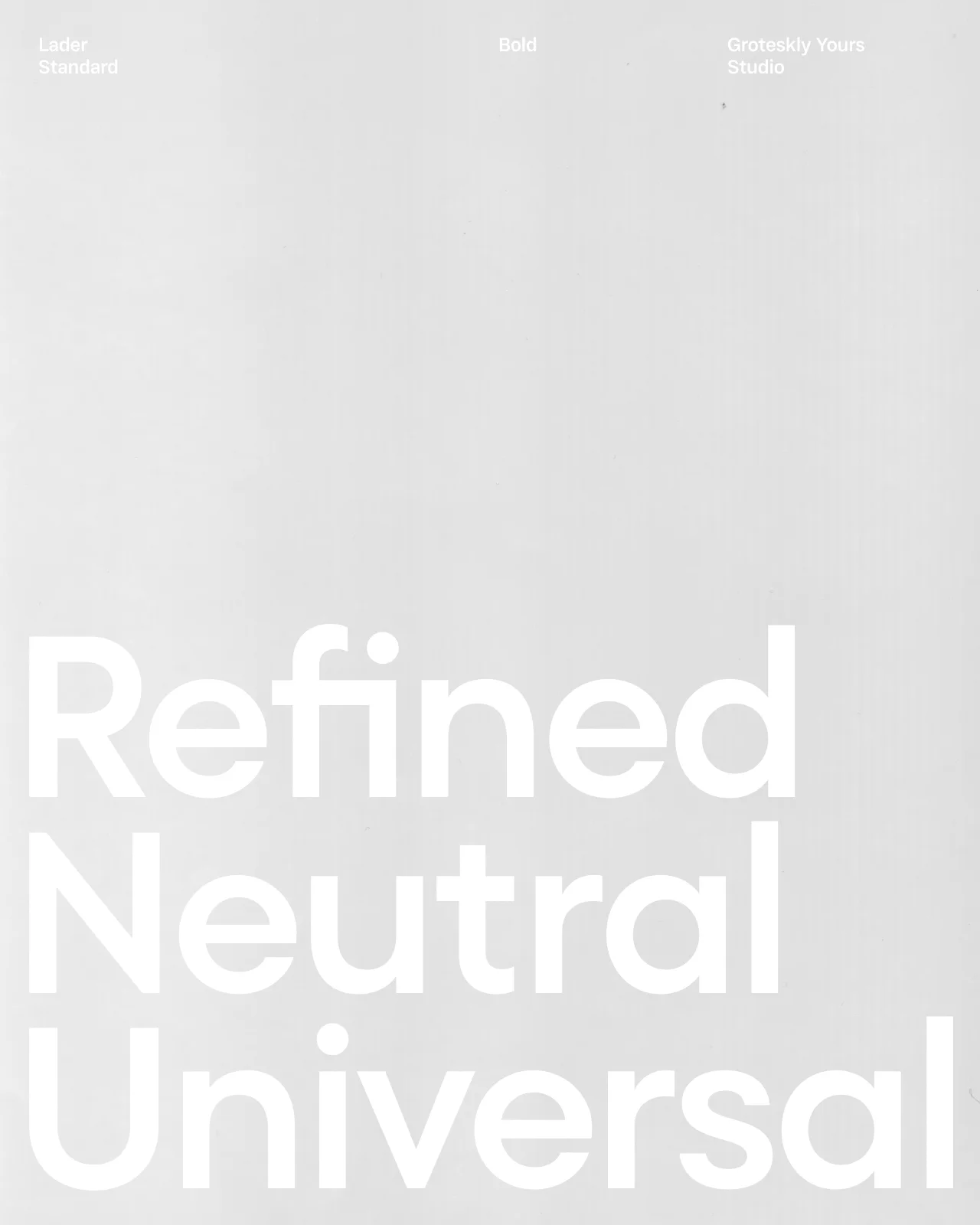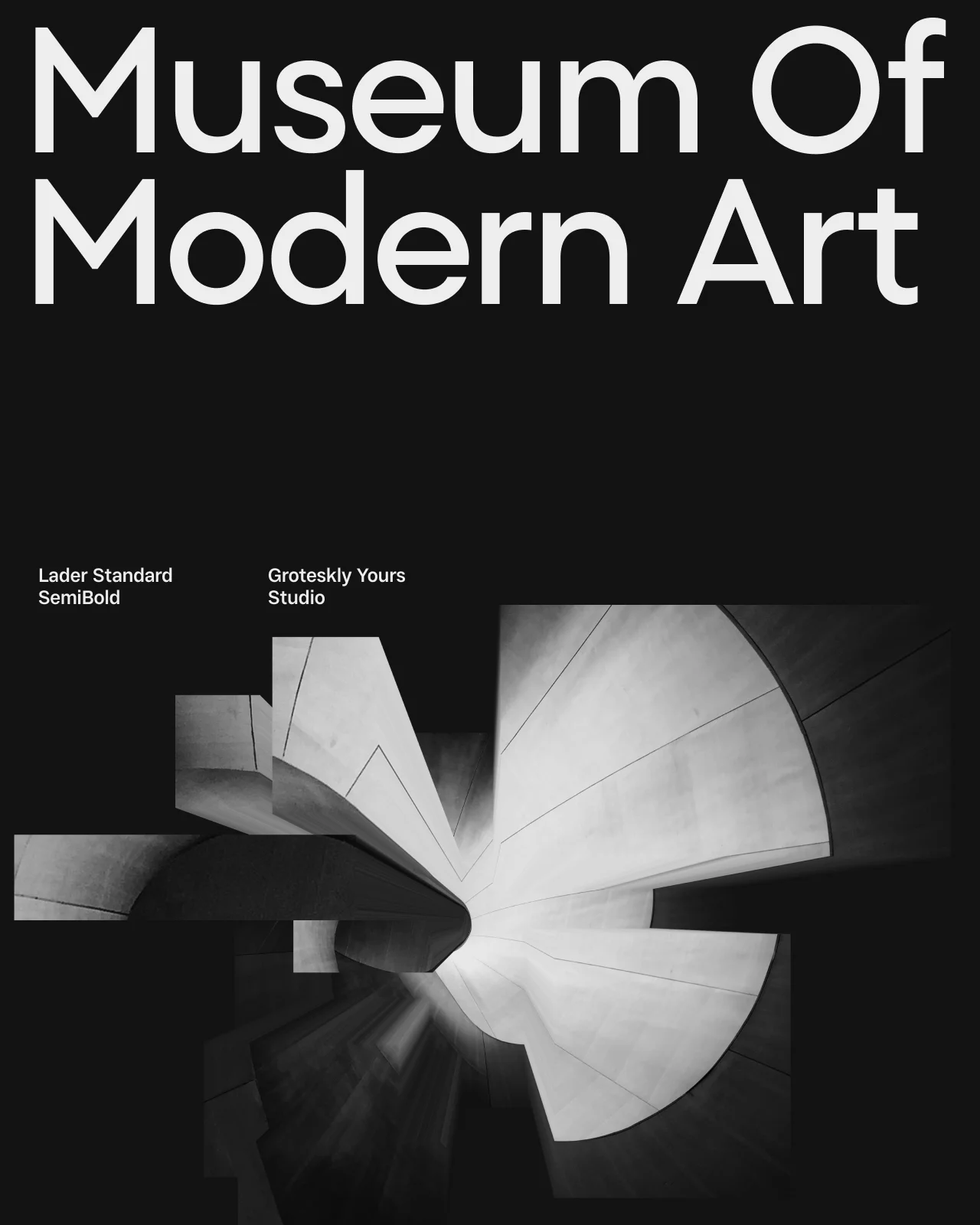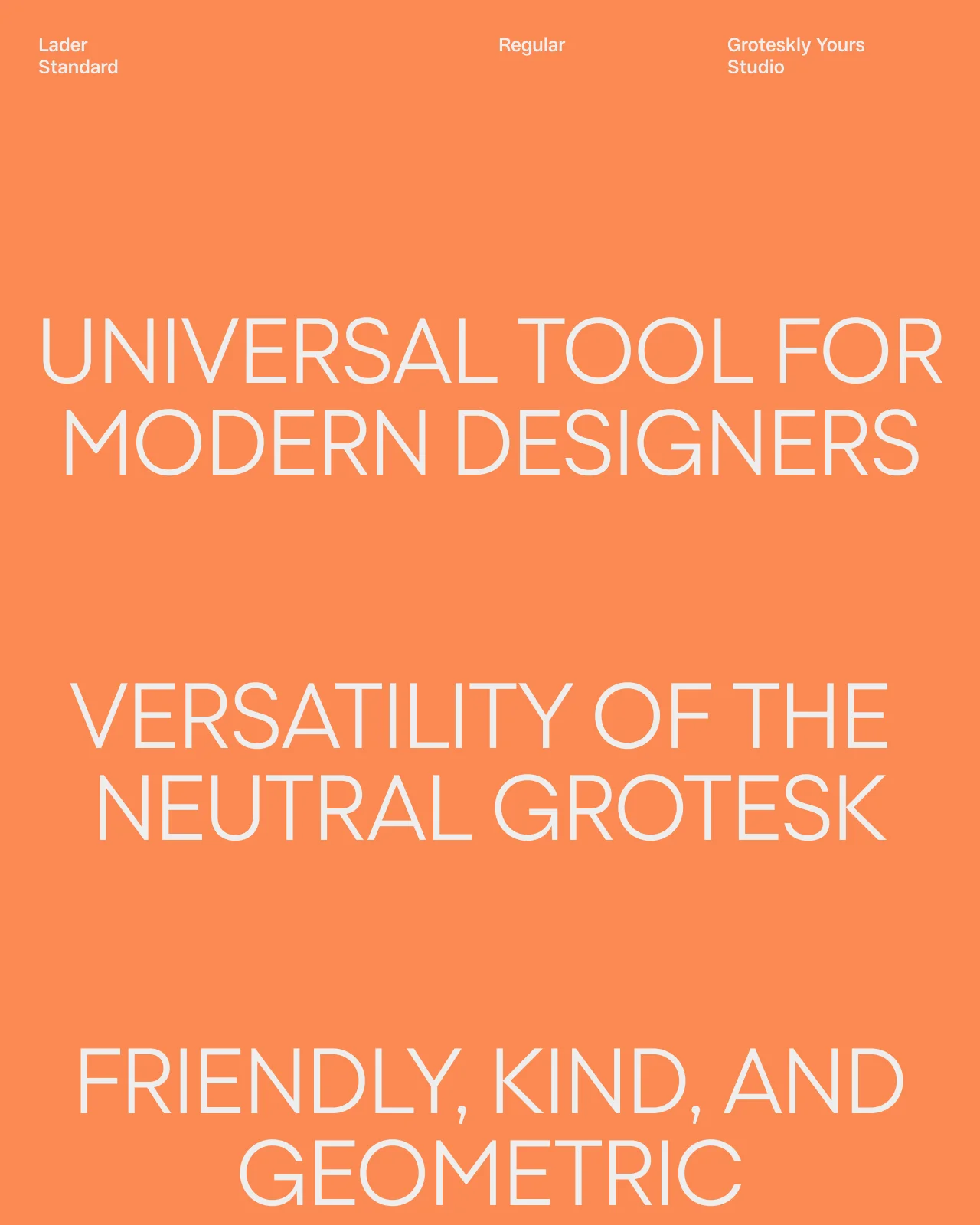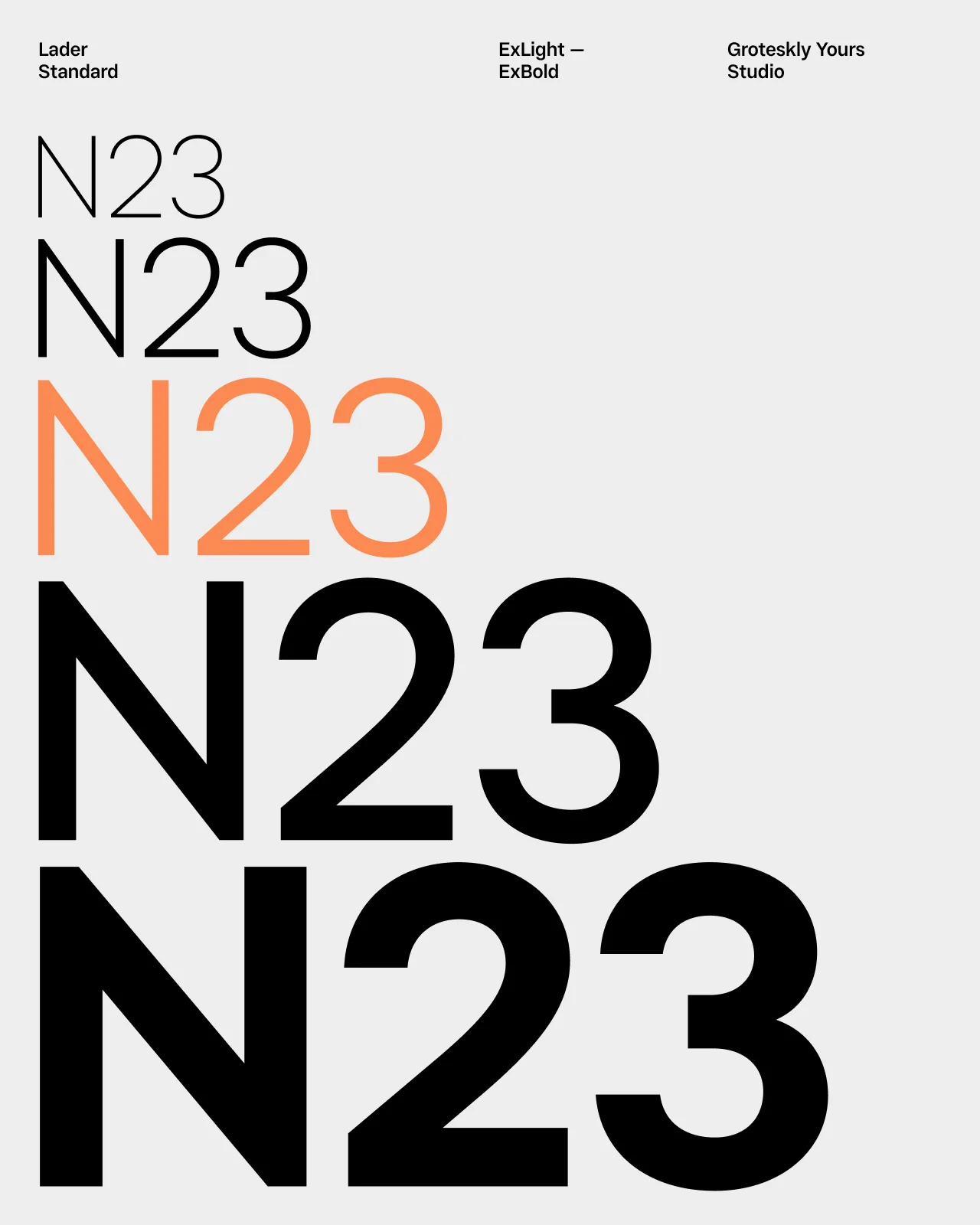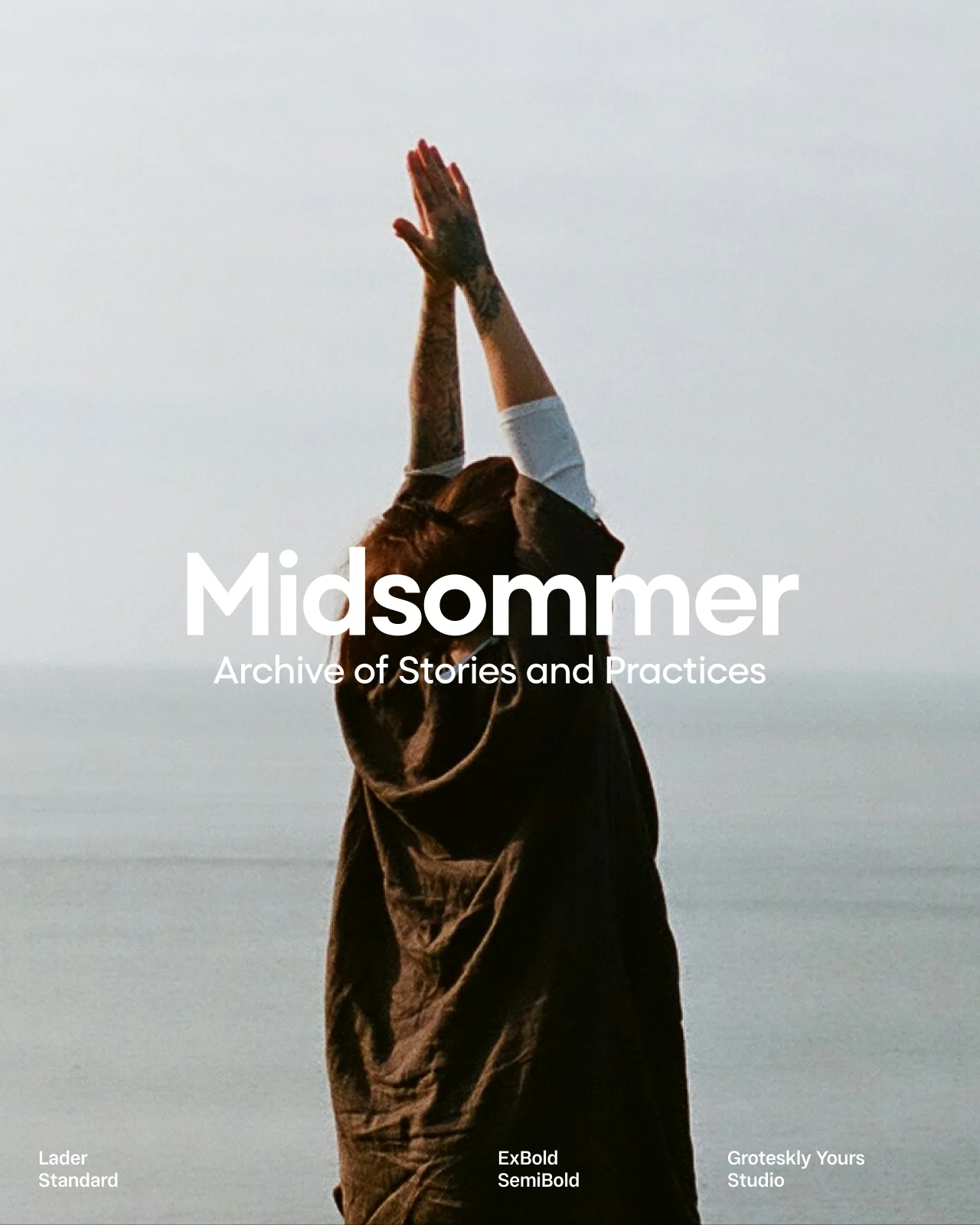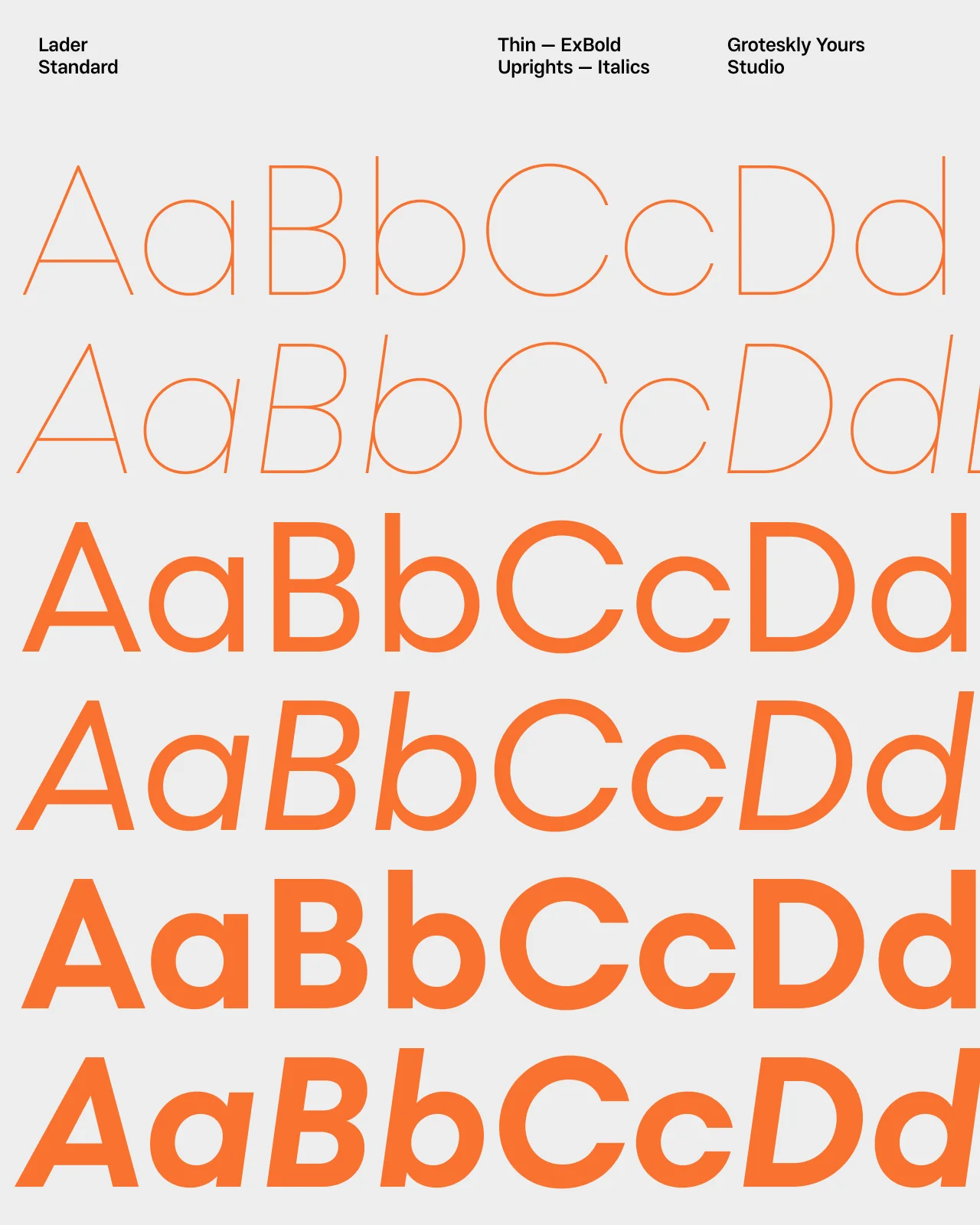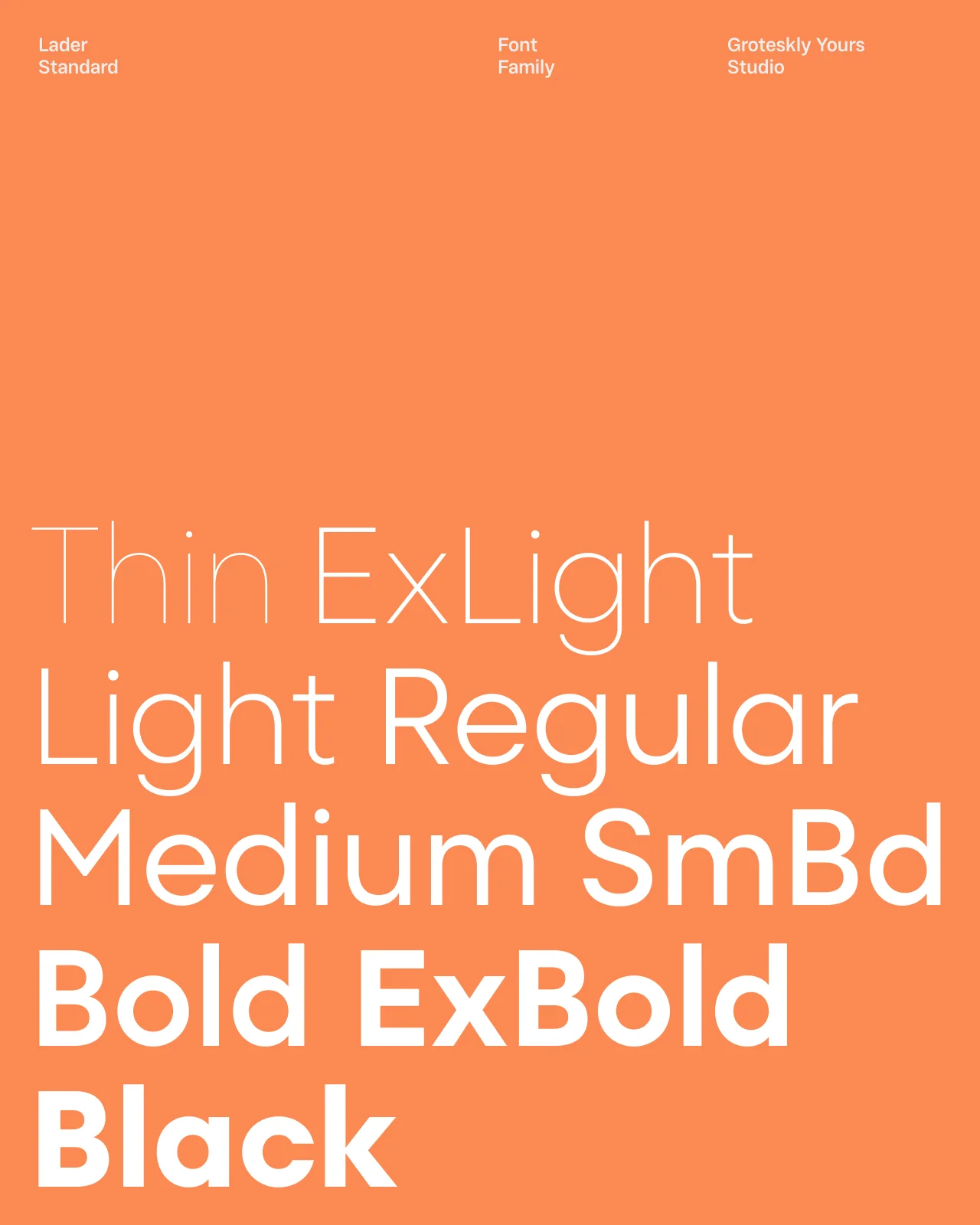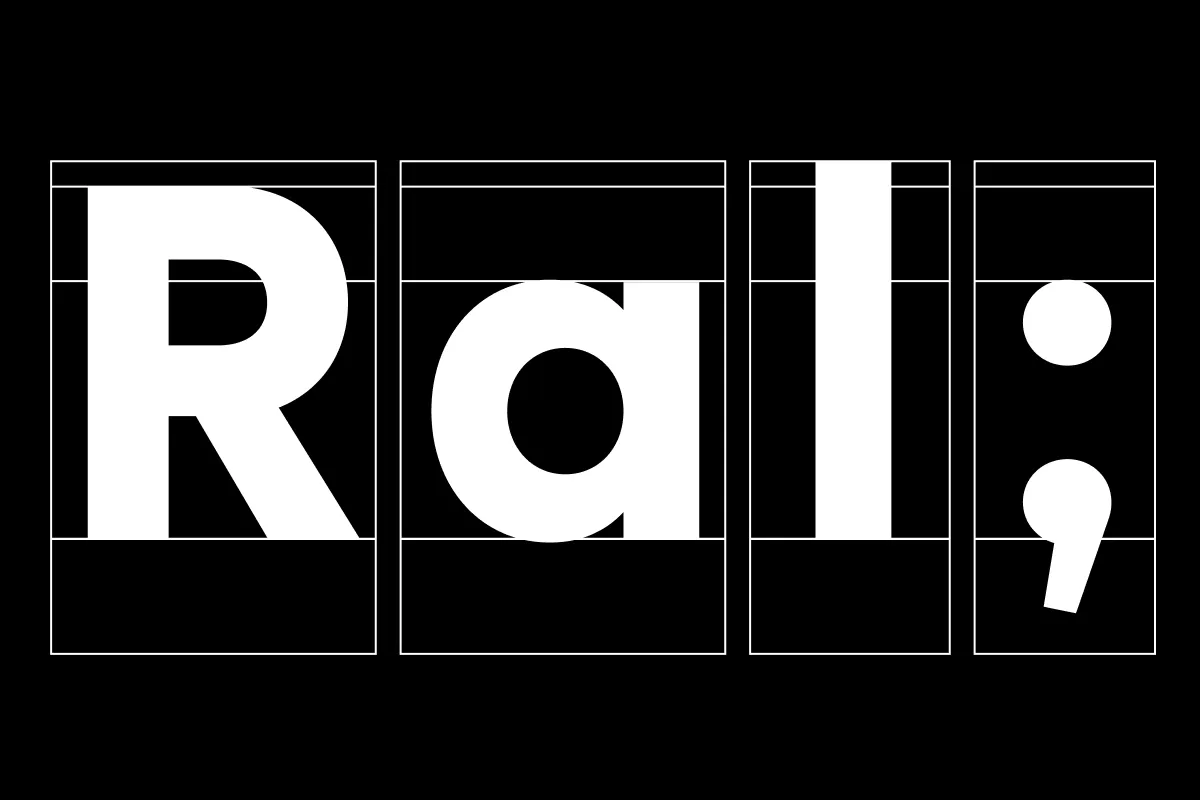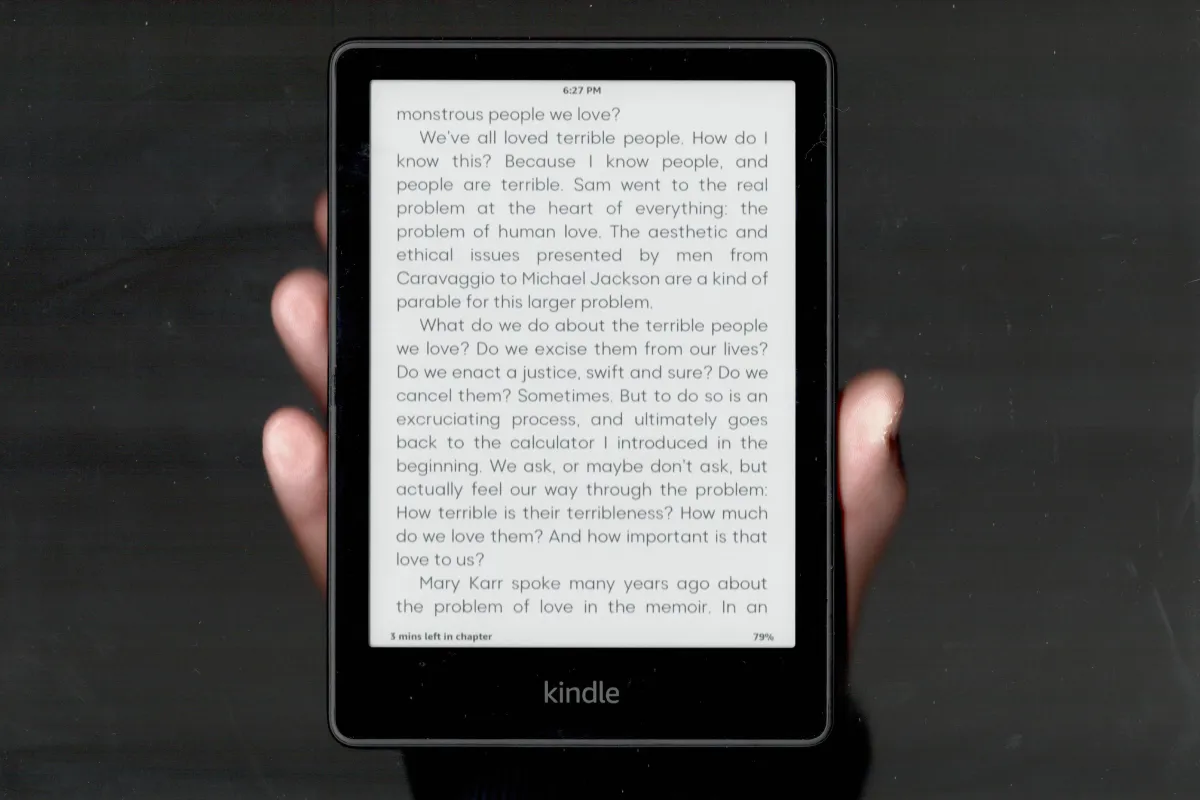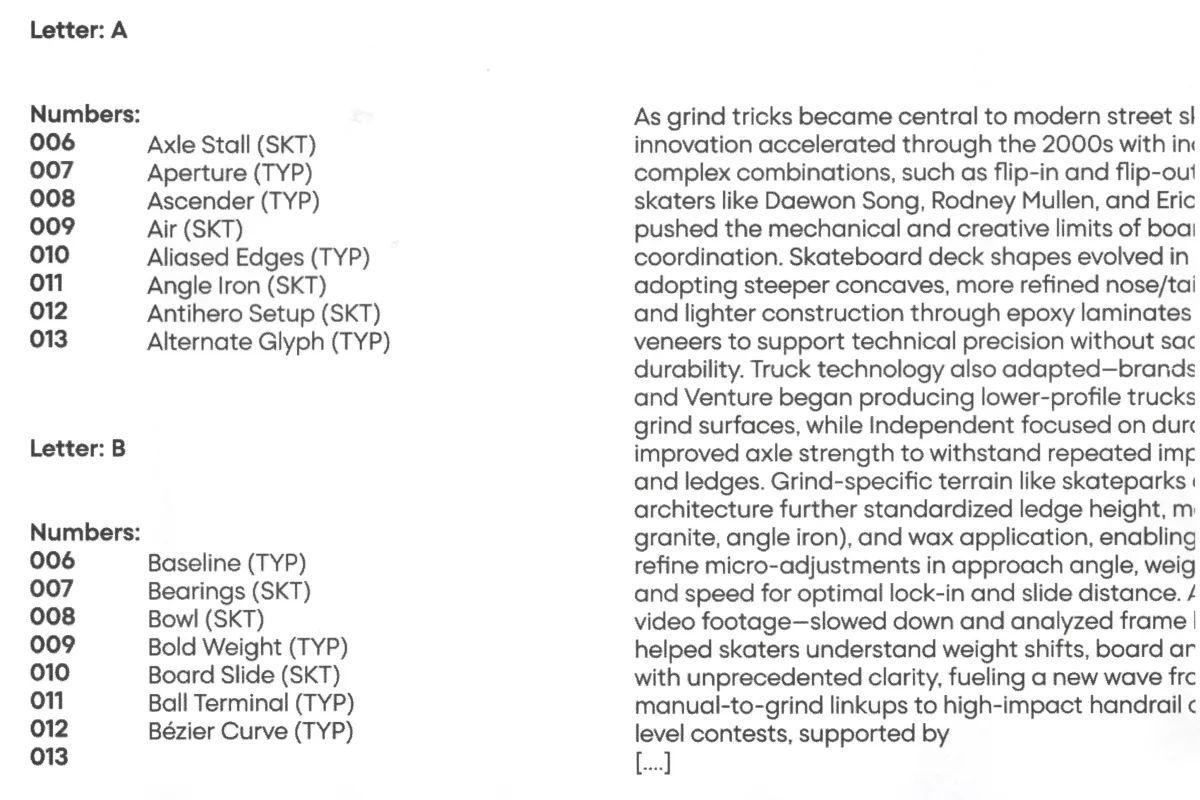
Lader Standard
Lader Standard is the original and foundational subfamily in the Lader family, featuring open proportions, balanced spacing and distinctive rounded ovals. It represents the quintessential geometric grotesque, combining clarity with subtle warmth that makes it highly versatile. As the progenitor of the Lader family, it set the tone and style that inspired the subsequent subfamilies. With 18 styles from Thin to Black and matching italics, it suits a wide range of applications and scenarios where legibility and personality are equally important.
Lader Standard blends precise geometry with soft curves, giving it a balanced and approachable tone. It works equally well as a text typeface and as a confident display font, making it a dependable choice for editorial work, branding, packaging, and digital platforms, including web design, app interfaces, and UX/UI environments.
Equipped with a full set of OpenType features (such as stylistic alternates, ligatures, fractions, subscript, superscript, and many others) Lader Standard offers the typographic tools necessary for both expressive and practical design. It supports most Latin-based languages, including Vietnamese and others, ensuring broad language coverage with confidence and clarity.